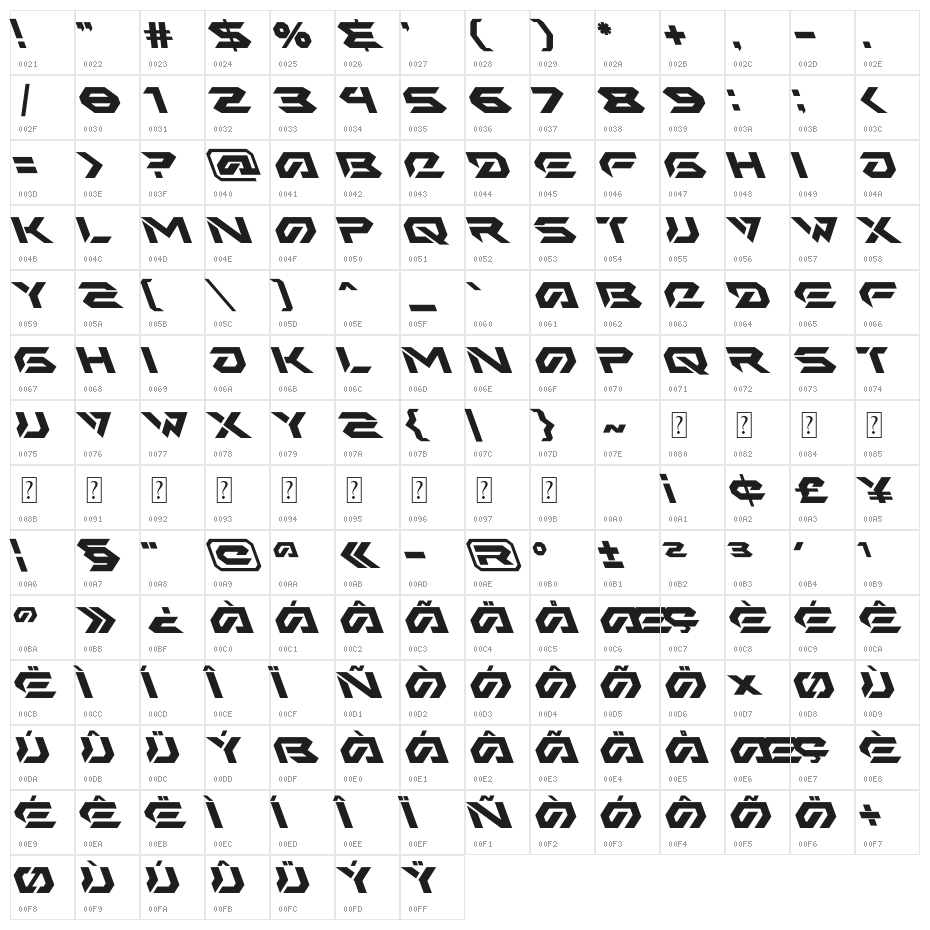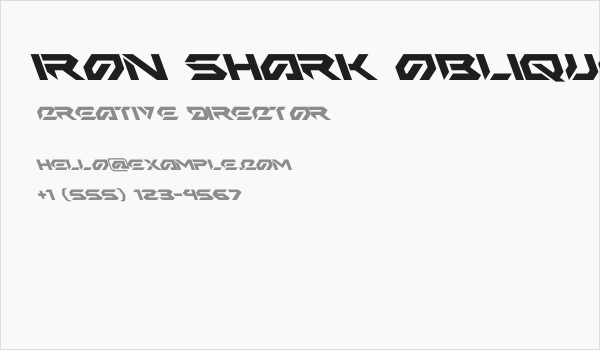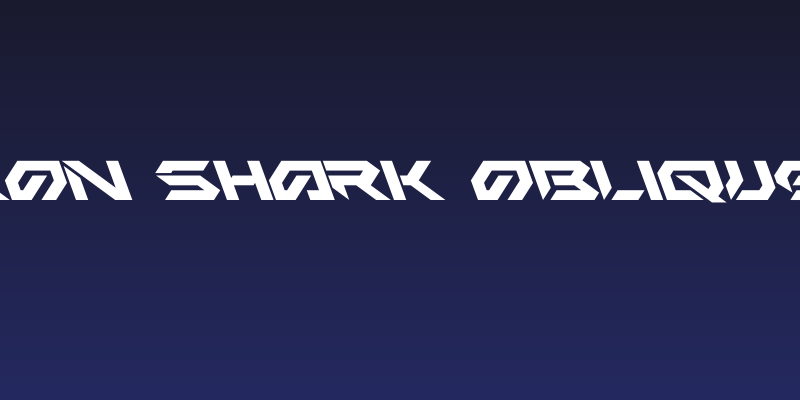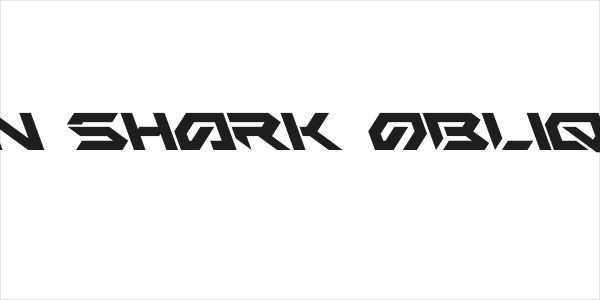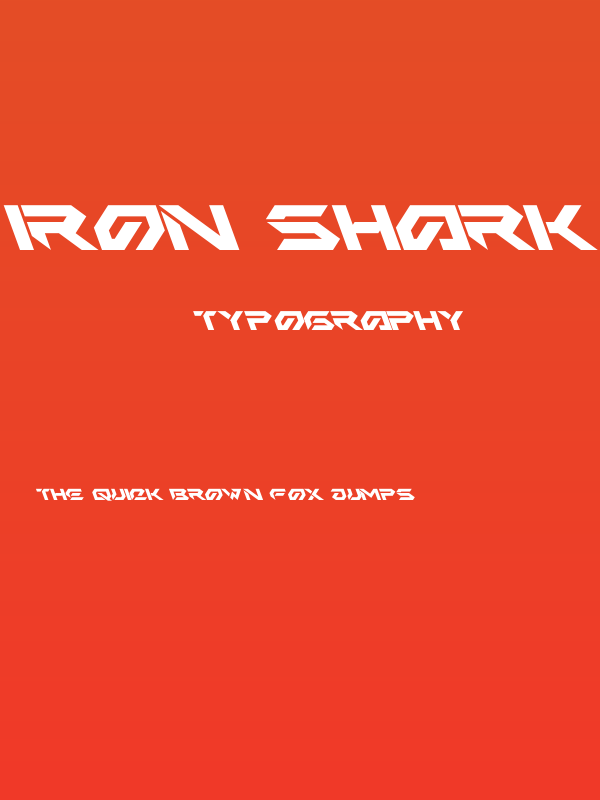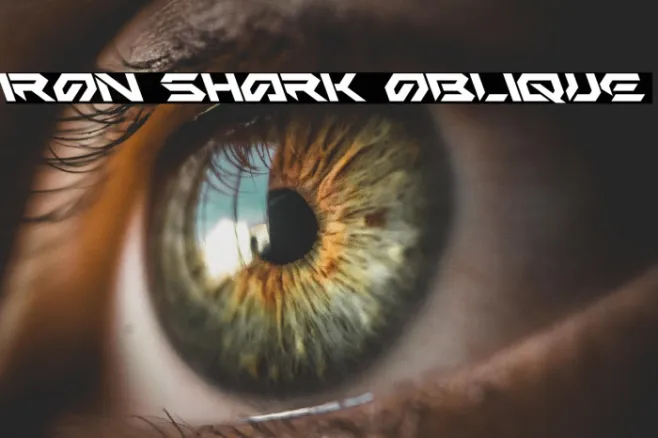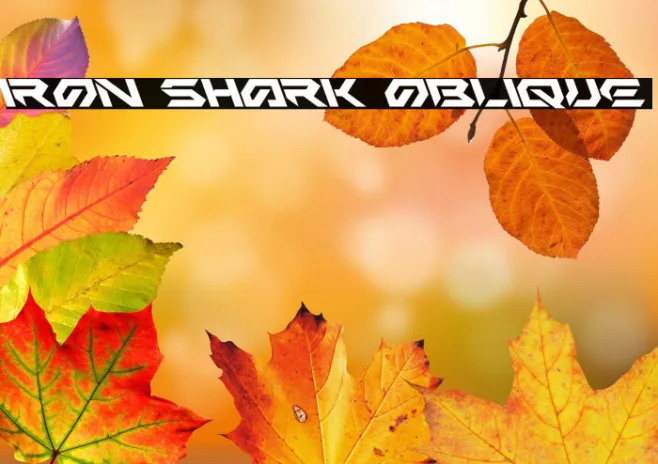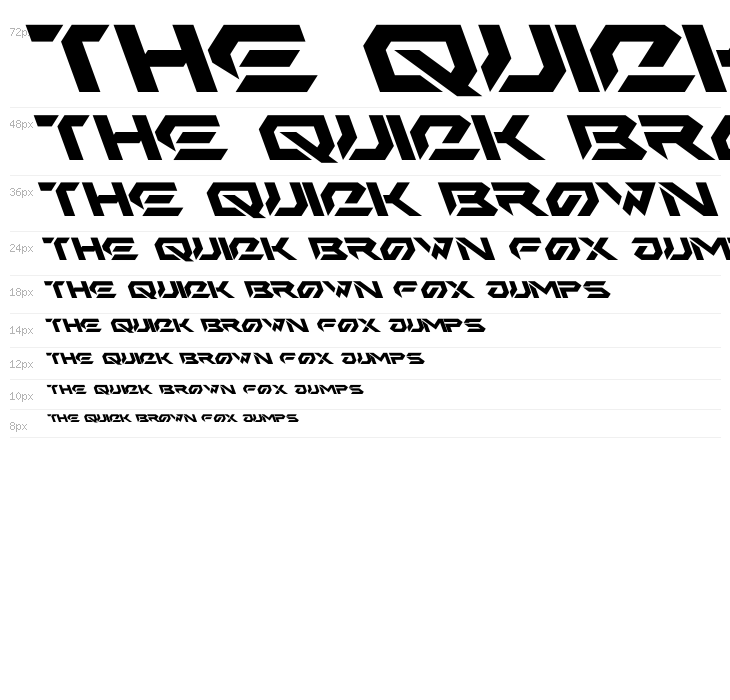
Iron Shark Oblique Font
Iron Shark Oblique Description
This font features a bold, angular design with a futuristic and aggressive aesthetic. The characters are constructed with sharp, geometric shapes that create a sense of movement and dynamism. The oblique style adds an additional layer of intensity, making it stand out with its unique, edgy appearance. The uppercase and lowercase letters maintain a consistent style, while the numbers and special characters complement the overall design. This font is ideal for projects that require a strong, impactful visual presence.
| Overall Style | Futuristic, Aggressive |
| Proposed Projects | Ideal for video game titles, sci-fi movie posters, tech branding, and sports team logos. |